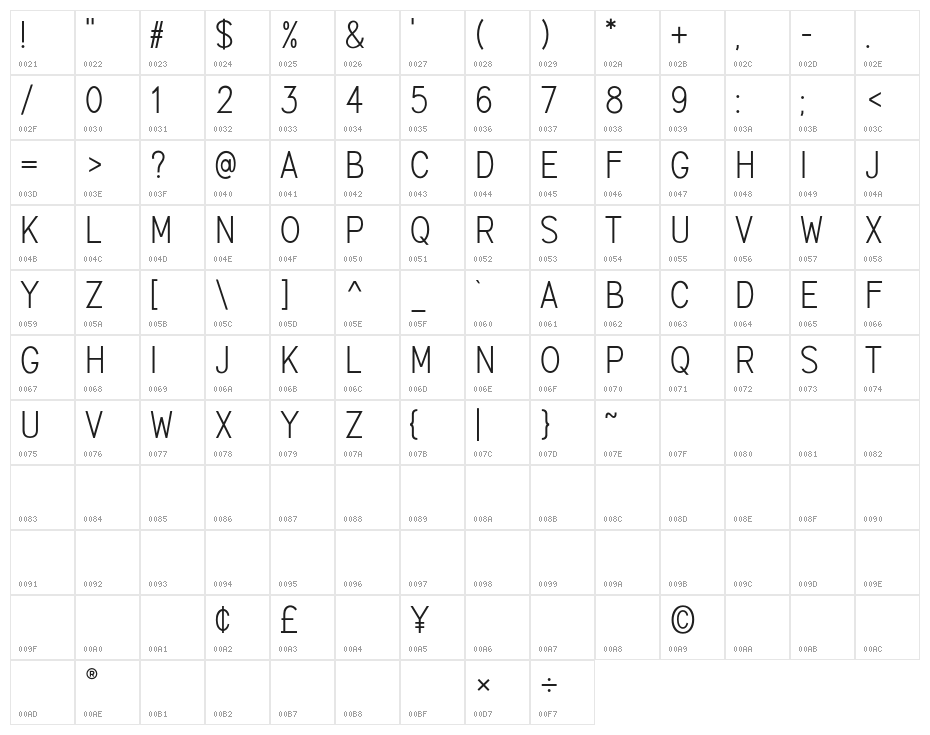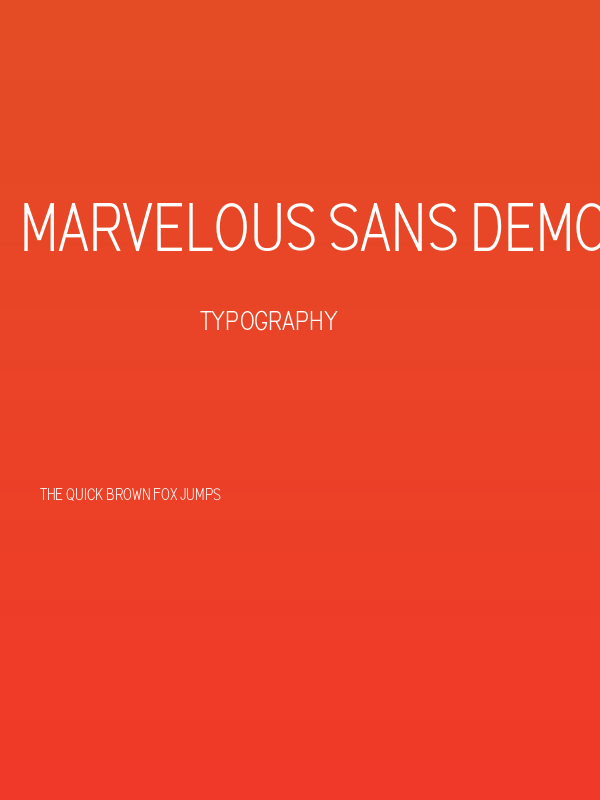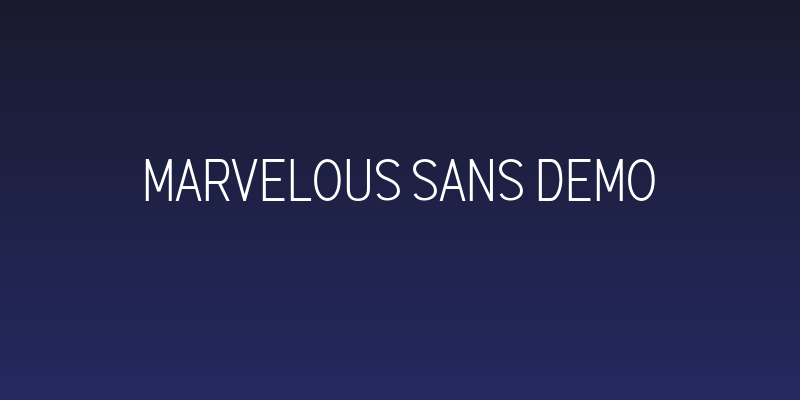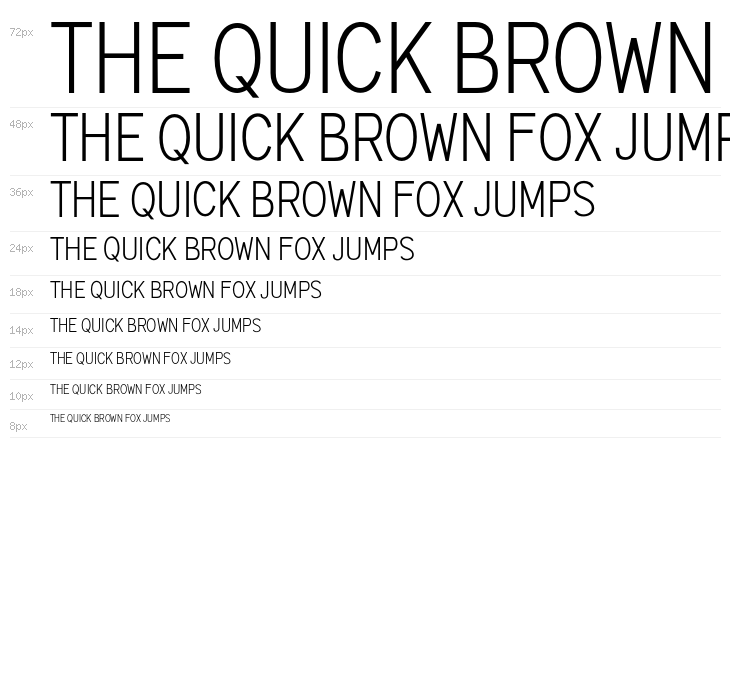
Marvelous Sans Demo Font
Marvelous Sans Demo Description
This font exhibits a clean and modern sans-serif style, characterized by its simplicity and clarity. The letters are evenly spaced with a uniform stroke width, providing a balanced and harmonious appearance. The uppercase and lowercase letters maintain a consistent height, contributing to its legibility. The numerals are straightforward and align well with the overall design, making it suitable for various applications. Special characters are clearly defined, enhancing the font's versatility. Its minimalist design makes it ideal for contemporary projects that require a sleek and professional look.